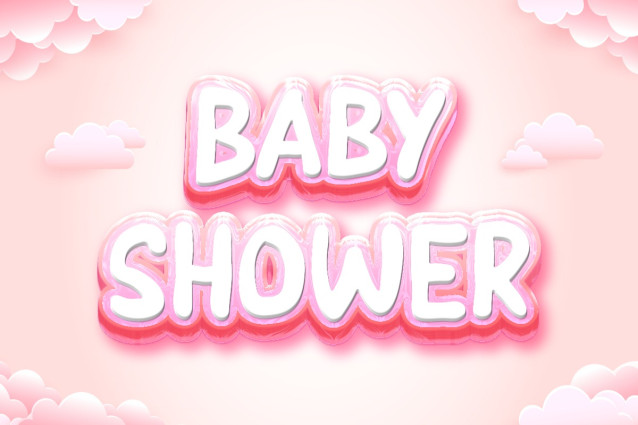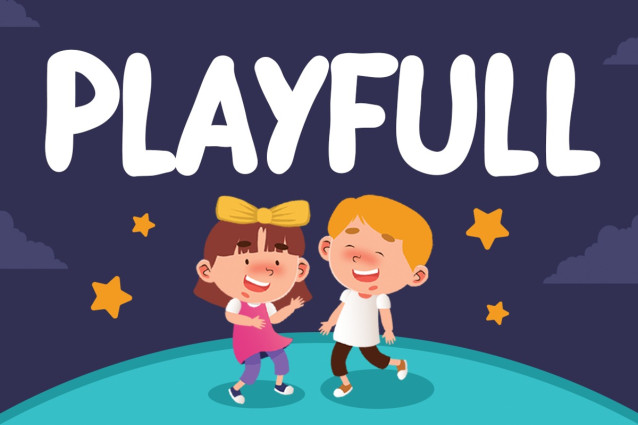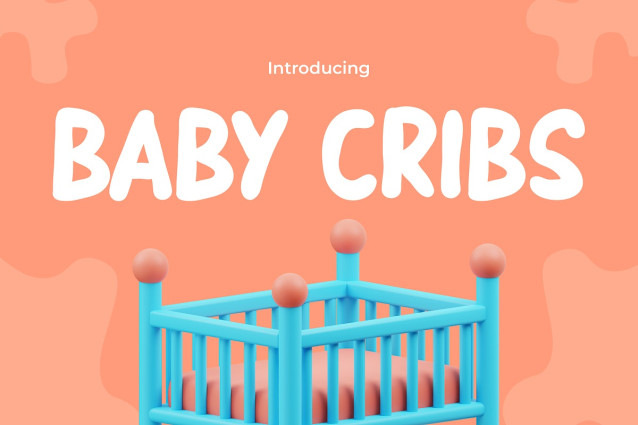
Baby Cribs Font
Baby Cribs Font is a delightful font that captures the essence of childhood with its fun, cute, and playful style. Designed specifically with kids in mind, this font adds a touch of whimsy and joy to any project. Its playful curves and cheerful design make it perfect for a wide range of applications – from creating engaging logos that attract the younger audience to crafting heartwarming quotes.
Baby Cribs shines in invitations, offering a warm and inviting feel that is ideal for children’s parties and events. In posters and greetings, it brings a lively and energetic vibe, instantly capturing attention and spreading happiness. When it comes to packaging and branding, Baby Cribs adds a unique and memorable charm, ensuring your products stand out. Its versatility extends to book covers, headlines, and advertising, where it communicates in a language filled with fun and imagination.